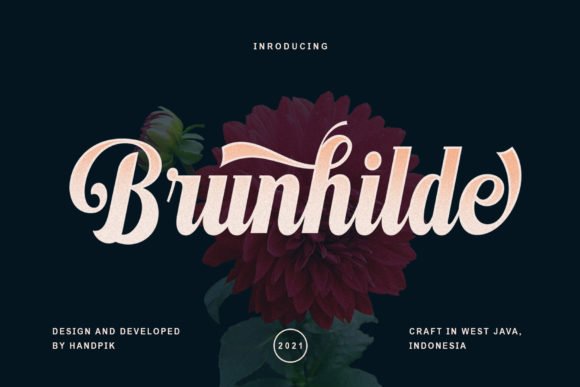
Discover the Timeless Elegance of Brunhilde Font
As a designer, there’s nothing quite like the thrill of bringing a project to life. You’re pouring over sketches, refining your vision, and carefully selecting each element to create something truly special. And then, it happens – you stumble upon the perfect font, one that elevates your design to new heights and leaves a lasting impression on your audience. For many, that perfect font is the Brunhilde Font, a masterfully crafted handwritten typeface that embodies the perfect blend of classic calligraphy and modern flair.
With its elegant, flowing lines and sophisticated charm, the Brunhilde Font is the ultimate tool for designers seeking to add a touch of sophistication to their projects. Whether you’re crafting a wedding invitation, a branding package, or a marketing campaign, this font is sure to bring your vision to life and leave a lasting impression on your audience.
Brunhilde Font Key Features
- Font Family: Brunhilde
- Unique Characteristics: Brunhilde features a bold, dramatic, and elegant style with intricate details and ornate flourishes, making it suitable for formal and luxury designs
Brunhilde Font Review
I recently had the chance to work with the Brunhilde font, and I’m excited to share my thoughts on it. Here’s what I liked and didn’t like.
- Unique and Distinctive Look: Brunhilde has a distinctive, hand-painted feel that sets it apart from other fonts. It’s perfect for adding a touch of personality to your designs.
- Legibility: Despite its unique look, Brunhilde is still quite legible, especially at larger sizes. This makes it a great choice for headings and titles.
- Flexibility: Brunhilde comes in a range of weights and styles, from light to bold, and even script versions. This makes it easy to find the perfect look for your project.
- Limited Compatibility: Brunhilde is a script font, which can make it difficult to use at small sizes or in situations where clarity is crucial.
- Not Ideal for Body Text: While Brunhilde is great for headings and titles, it’s not the best choice for body text. Its unique look can be overwhelming if used extensively.
Brunhilde is a great choice for designers who want to add a touch of personality to their projects. Its unique look and flexibility make it a great choice for headings and titles, but it’s not ideal for body text or situations where clarity is crucial. Overall, I’d give Brunhilde 4 out of 5 stars.
Brunhilde font is ideal for use in:
- Historical or medieval-themed designs
- Fantasy and science fiction artwork
Alternatives to Brunhilde Font
1. Carolina
Carolina is a high-contrast serif font ideal for body text and headlines. It features elegant lines and refined proportions. Use it for formal and professional projects, especially in magazines, newspapers, and corporate materials.
Carolina differs from Brunhilde in its more refined and elegant feel. While Brunhilde has a stronger, more rugged character, Carolina offers a softer and more sophisticated appearance.
Merriweather is a classic serif font perfect for long blocks of text and formal documents. Its sturdy lines and traditional feel make it suitable for academic and professional projects. Use it for books, academic papers, and formal reports.
Merriweather shares some similarities with Brunhilde in its classic feel, but it lacks Brunhilde’s ruggedness and boldness. Merriweather is more conservative and traditional in its design.